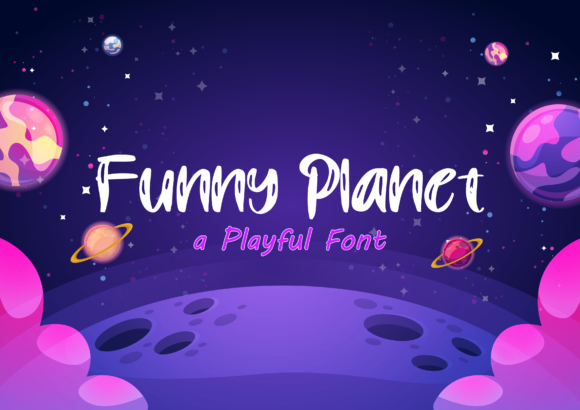
Meet the Font that Brings a Smile
Do you remember the first time you created something that made a child’s eyes light up? Maybe it was a drawing, a story, or a handmade card. Whatever it was, it’s a feeling that never gets old, right? For designers and creatives, finding the right font can be the key to unlocking that same magic in their work.
Enter Funny Planet Font, a charming display font that’s perfect for bringing a touch of whimsy and friendliness to any project. With its bubbly, playful feel, Funny Planet Font is the ideal choice for kids’ activities, school projects, and anything else that needs a dose of authenticity and warmth. For designers, Funny Planet Font offers a valuable opportunity to add a personal touch to their work and make a lasting impression on their audience.
Funny Planet Font Key Features
- Unique Characteristics: Funny Planet Font features a playful, whimsical design with hand-drawn elements, making it perfect for adding a touch of humor and personality to your designs.
Designer Review: Funny Planet Font
As a designer, I was excited to dive into the “Funny Planet Font” and see what it has to offer. ✨ One of the things that stands out about this font is its playful and quirky vibe. It’s perfect for creating eye-catching headlines or adding a touch of whimsy to your designs. The font’s unique character set and varied line weights make it a great choice for designers looking to add some personality to their work.
Another thing that works well in the “Funny Planet Font” is its legibility. Despite its bold and playful appearance, the font remains easy to read, even at smaller sizes. This makes it a great choice for designers who want to create visually appealing designs without sacrificing clarity.
- Playful and quirky vibe
- Unique character set
- Varying line weights
- Good legibility
- May not be suitable for formal or professional designs
- Some characters may not be included in the font’s character set
Overall, I think the “Funny Planet Font” is a great choice for designers looking to add some personality to their work. While it may not be suitable for all types of designs, its unique character set and varied line weights make it a great option for creatives looking to stand out. ⚠️ Just be sure to check the font’s compatibility and character set before using it in your designs.
Use Funny Planet Font for playful and whimsical designs, such as:
- Party invitations
- Cartoon-style graphics
Remember to use the font in moderation to avoid overwhelming your design. Balance it with other fonts and design elements to create a visually appealing and funny design.